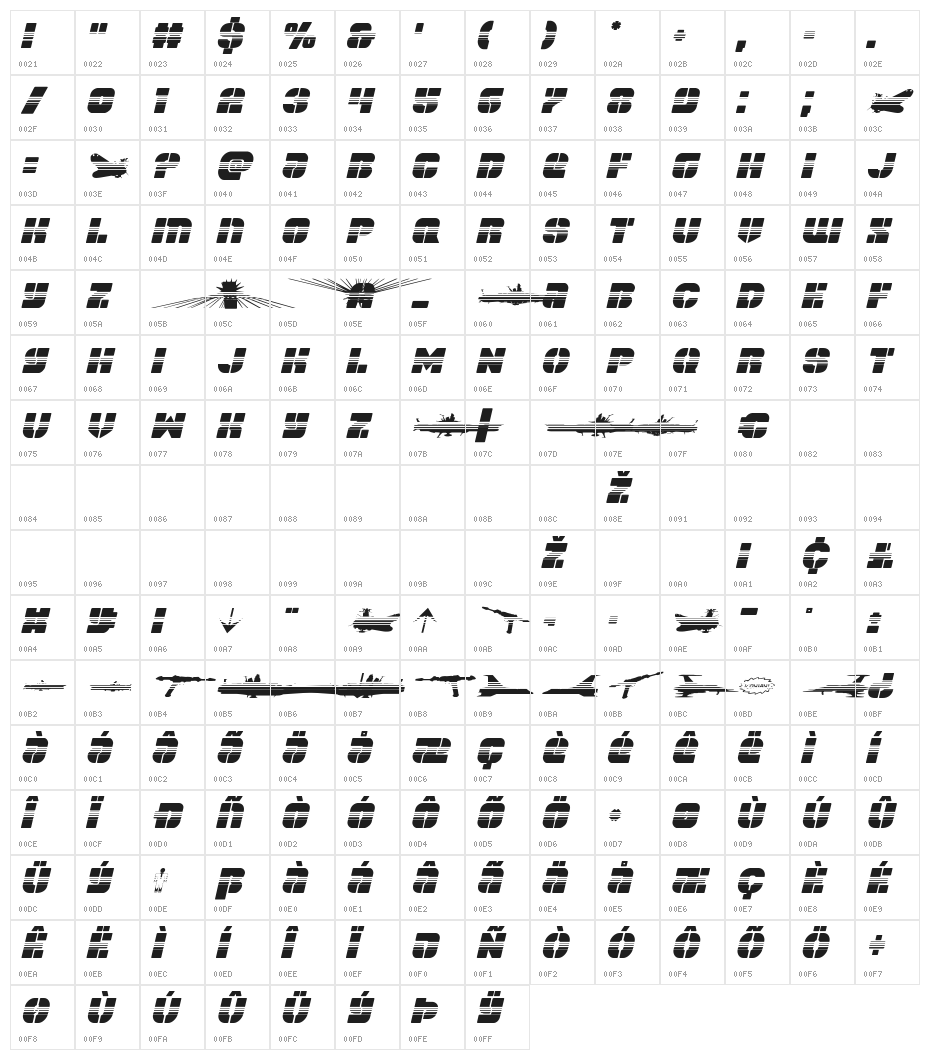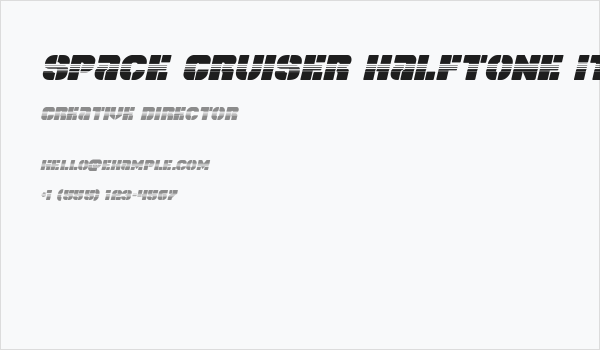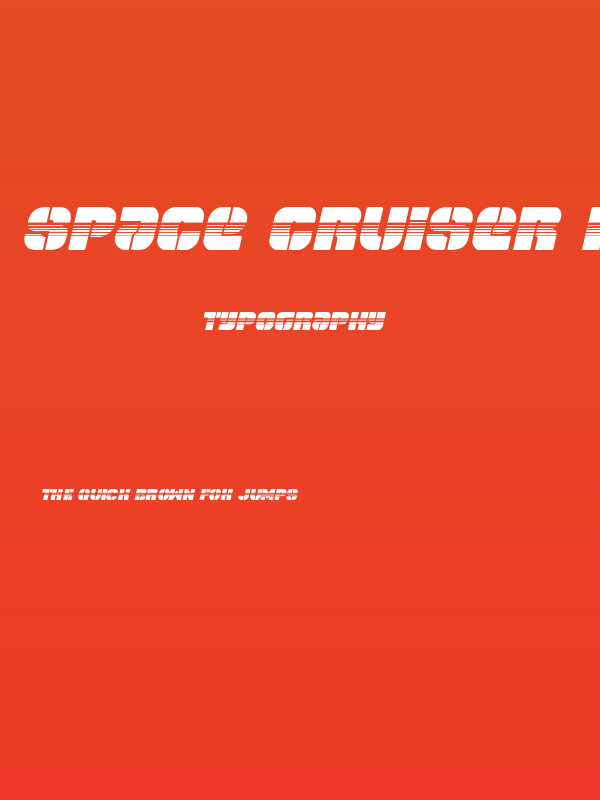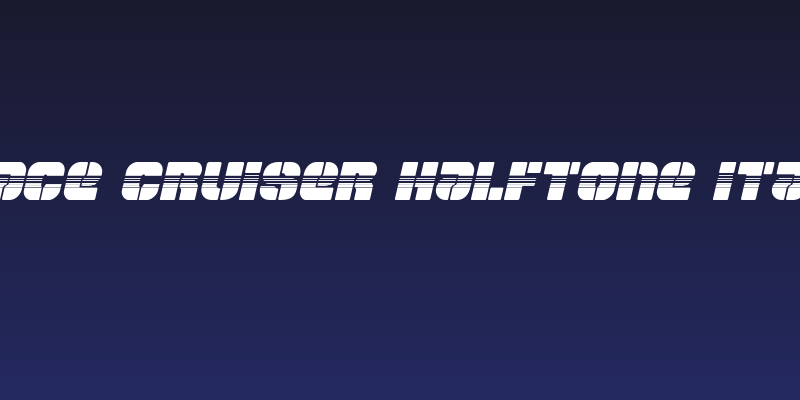
Space Cruiser Halftone Italic Font
Space Cruiser Halftone Italic Description
This font features a futuristic and dynamic design, characterized by bold, italicized letters with a halftone effect. The characters are composed of solid black forms intersected by horizontal white lines, creating a sense of movement and speed. The uppercase and lowercase letters maintain a consistent style, with rounded edges and a slightly condensed form. The numerals and special characters follow the same aesthetic, ensuring uniformity across the typeface. This design is visually striking and ideal for projects that require a modern, tech-inspired look.
| Proposed Projects | Ideal for sci-fi themed posters, video game titles, tech company logos, and futuristic branding. |